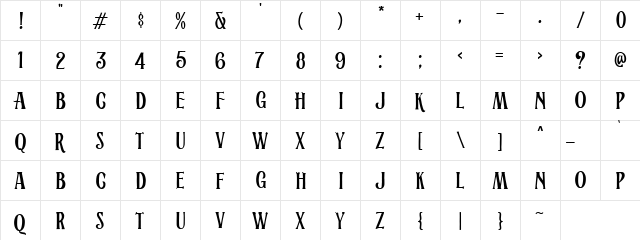
Alburgone DEMO Regular
Design Context for Alburgone DEMO Typeface
Alburgone DEMO is a composed and adaptable typeface that performs quietly and consistently across a wide range of design contexts.